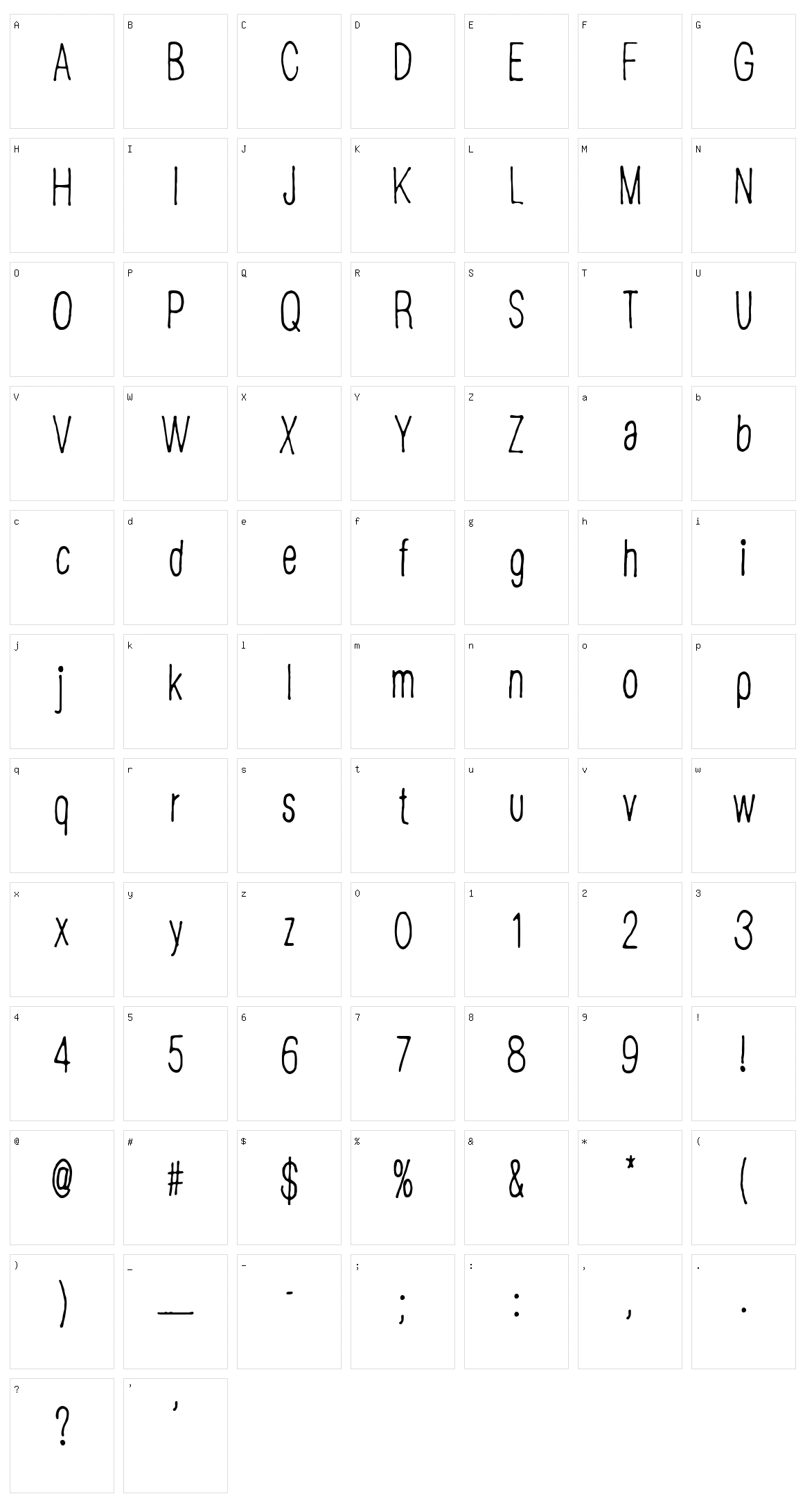
The free font CF Disappointed is carefully designed by Cloutierfontes, showcasing a thoughtful balance of creativity and usability and falls under the Script font style. When you download the ZIP file, it contains only 25.38 KB of font files, making it lightweight and quick to download. Please review the license details below to understand permitted usage and distribution rights. If license information is not available, we recommend using this font for personal projects only or contacting the author directly for commercial usage permissions.